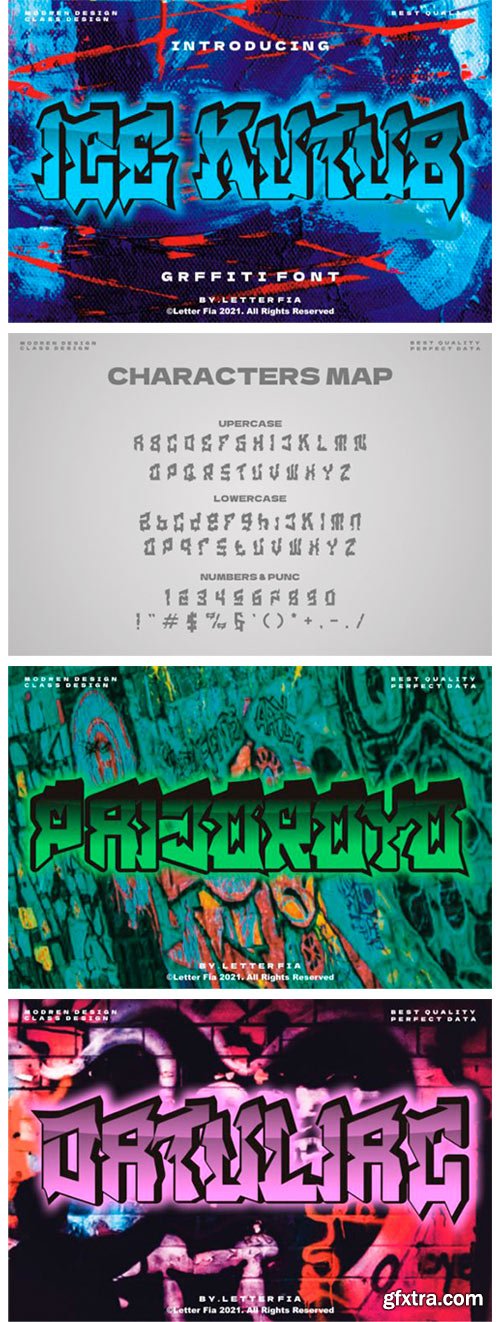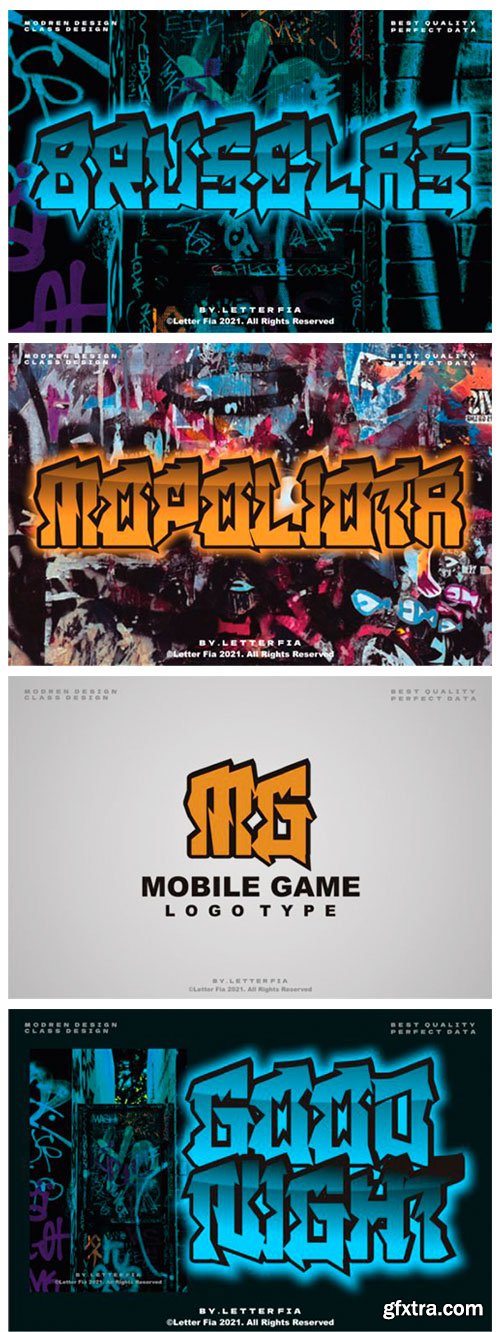
Ice Kutub Font
Ice Kutub is an awesome graffiti styled display font that features a street art vibe. This font is suitable for designs like jerseys, sportswear, skateboard projects and more.